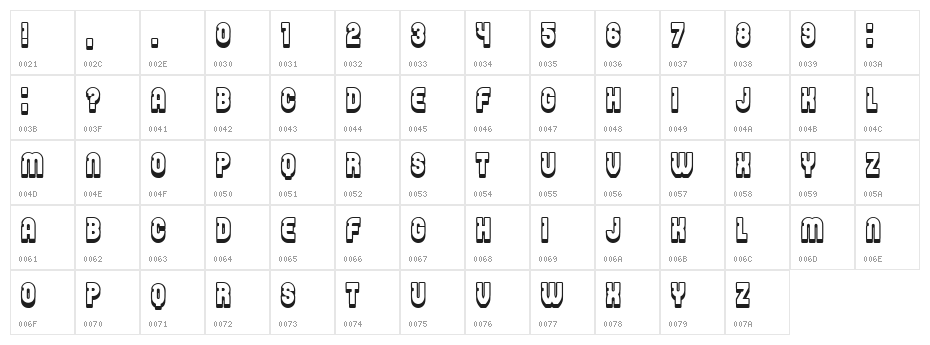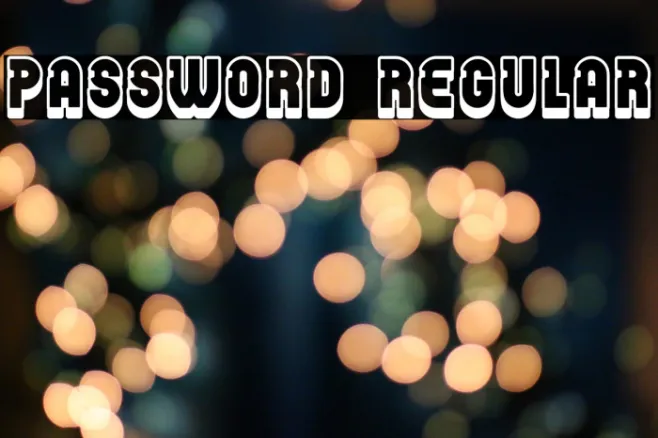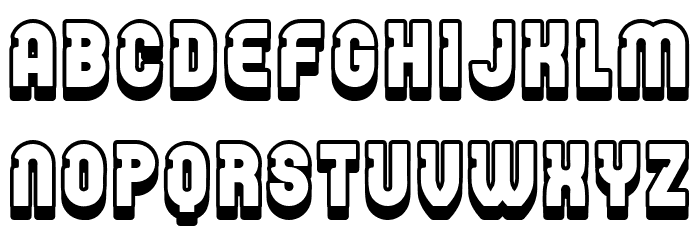
Password Regular Font
Password Regular Description
This font features a bold, three-dimensional appearance with a strong shadow effect that gives it a striking and impactful look. The characters are uppercase and have a blocky, geometric style with rounded edges, creating a sense of solidity and stability. The font's design is reminiscent of vintage signage or retro video game graphics, making it ideal for projects that require a nostalgic or playful touch. The numbers and special characters maintain the same bold and shadowed style, ensuring consistency across all elements.
| Overall Style | Retro, Playful |
| Proposed Projects | Ideal for retro-themed designs, video game graphics, posters, and signage that require a bold and playful aesthetic. |